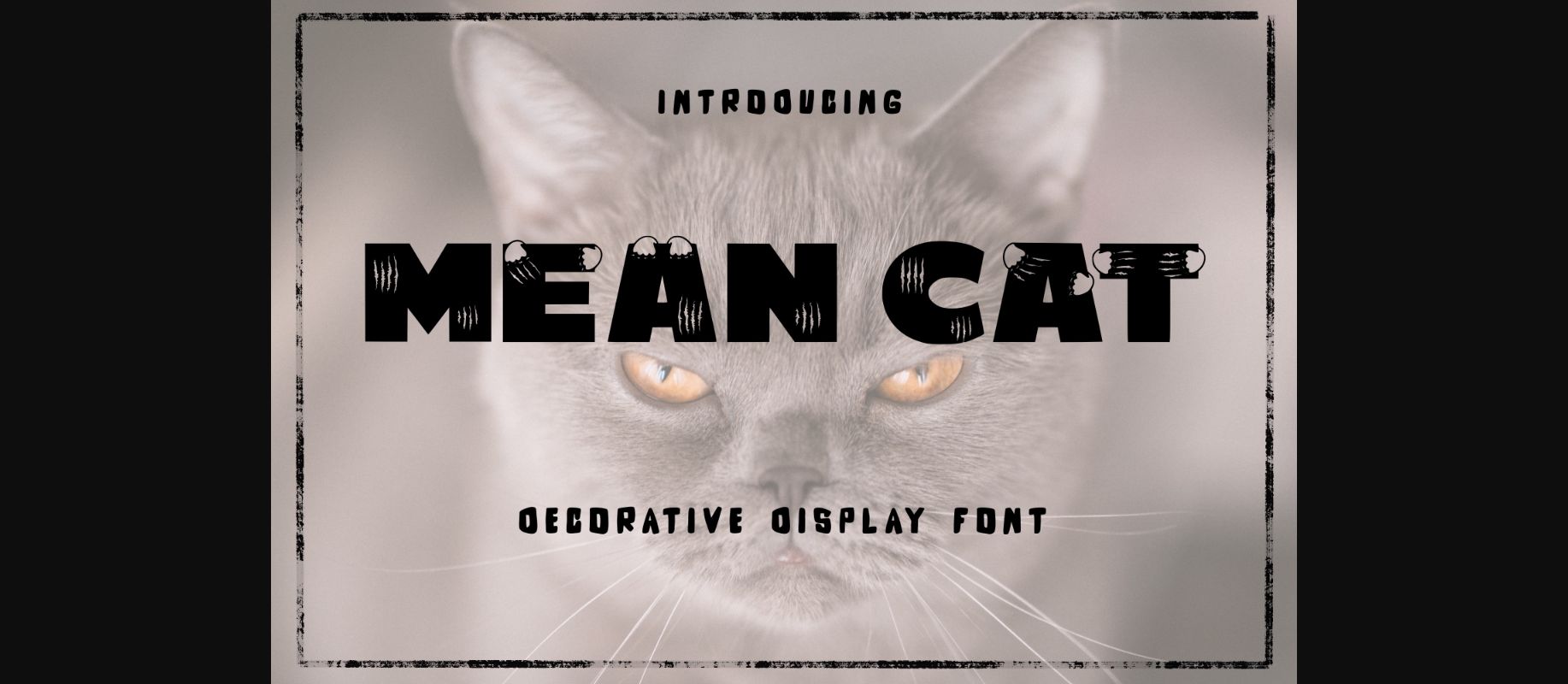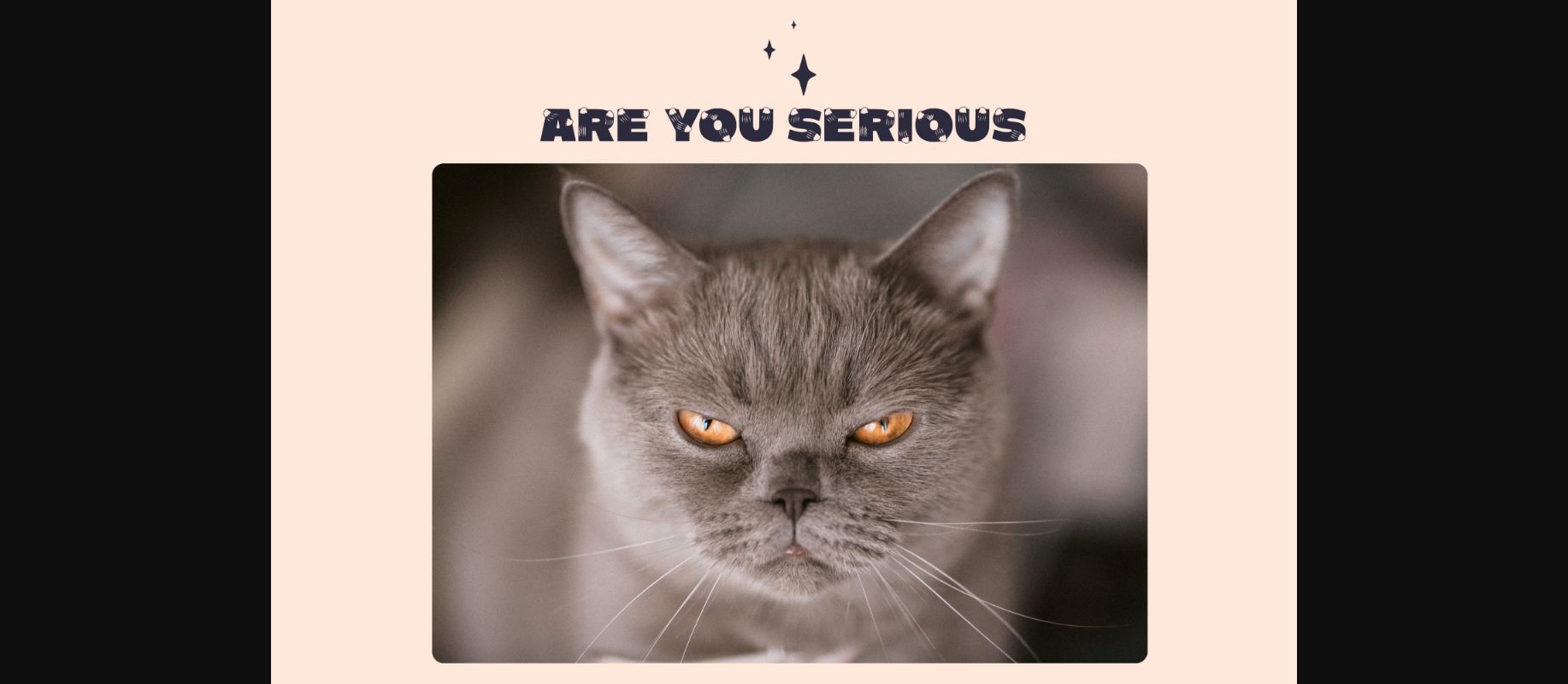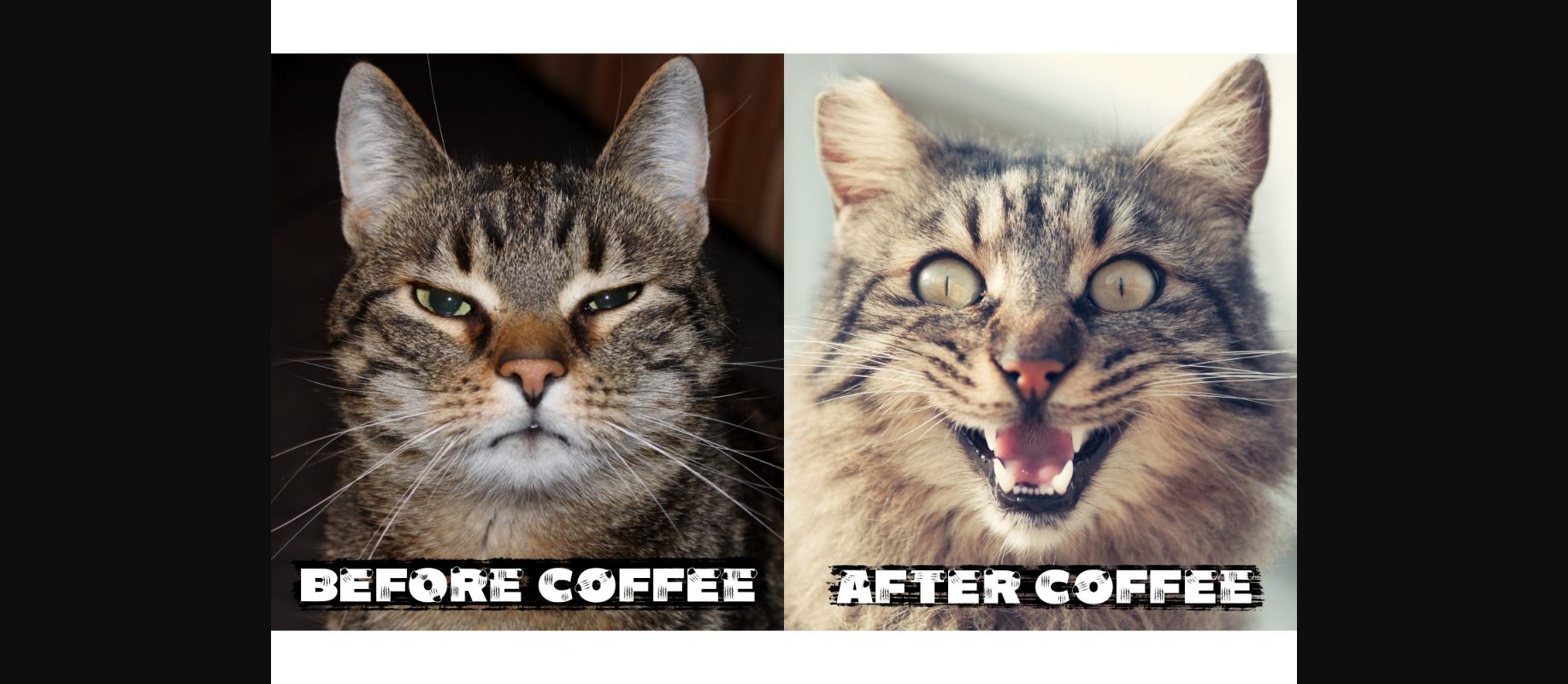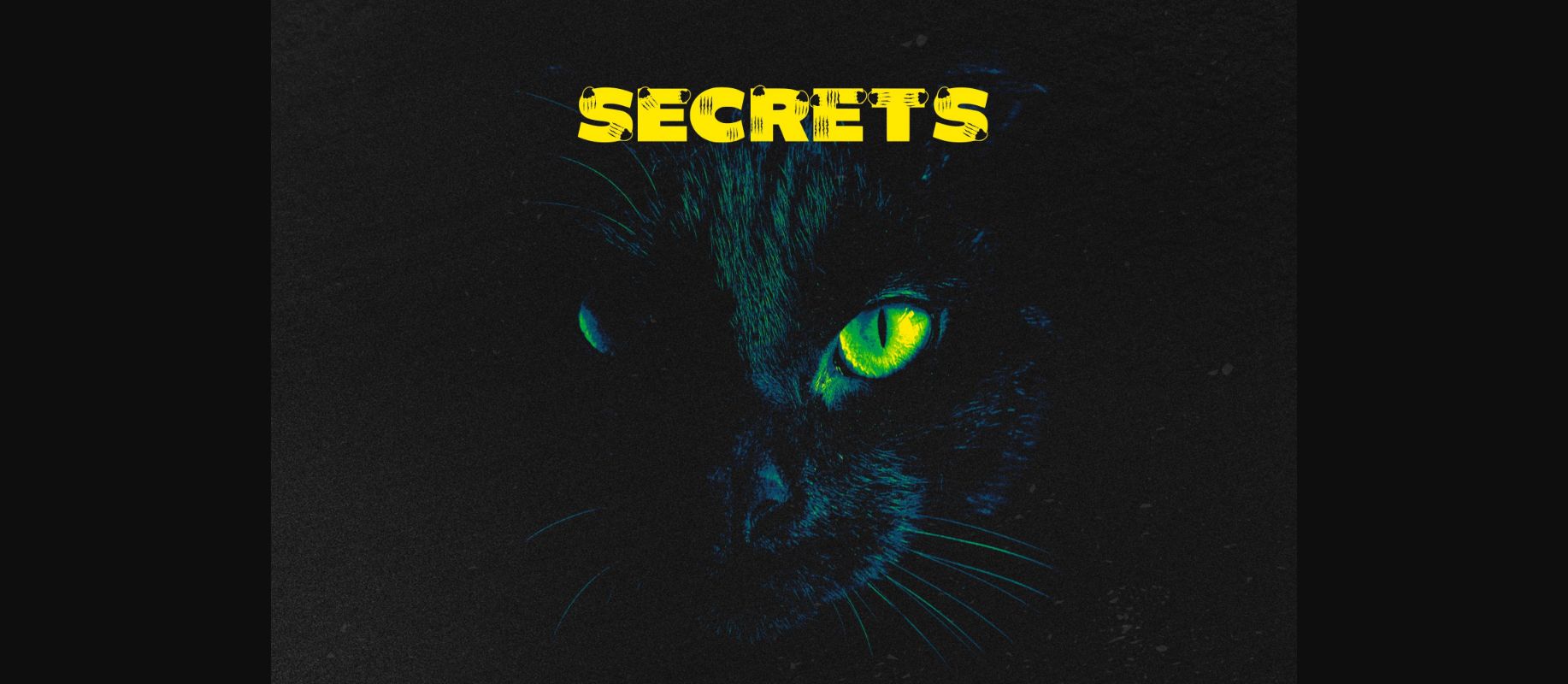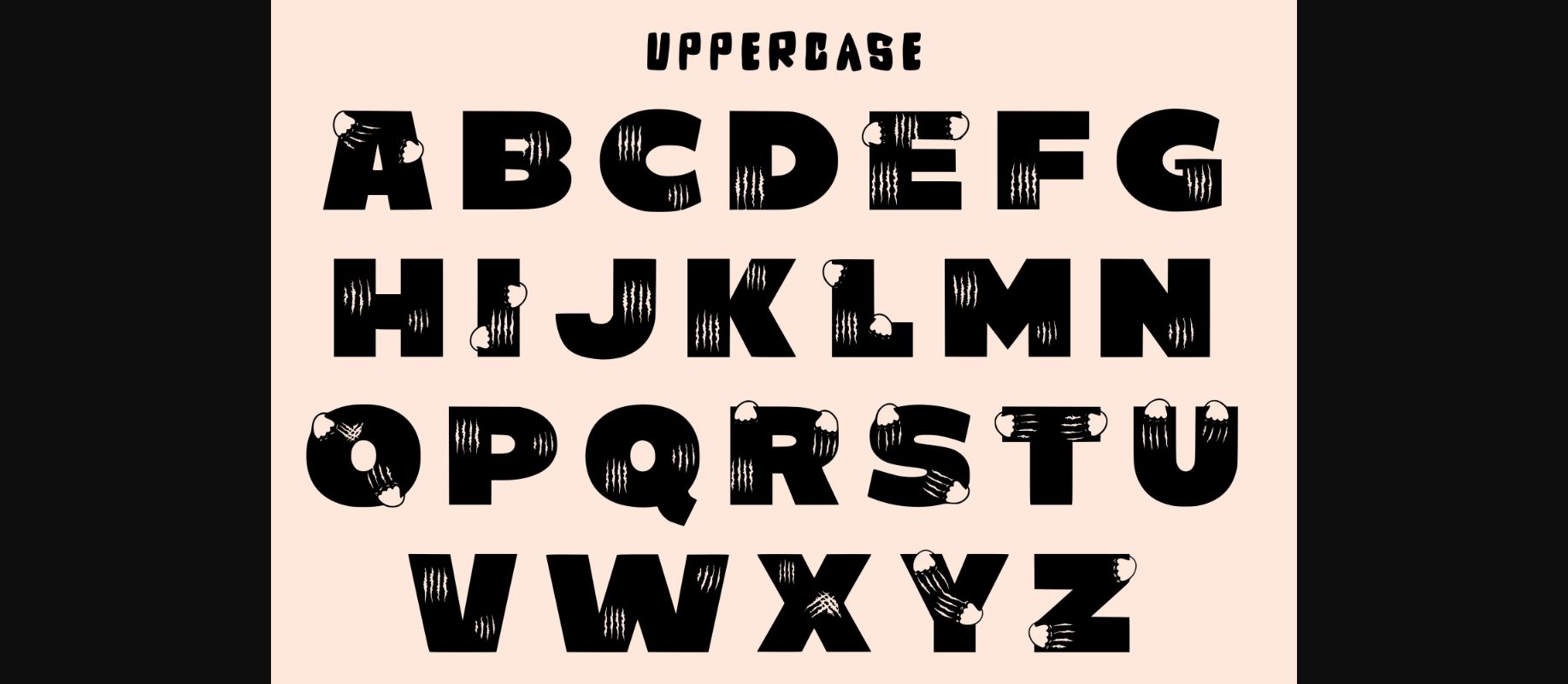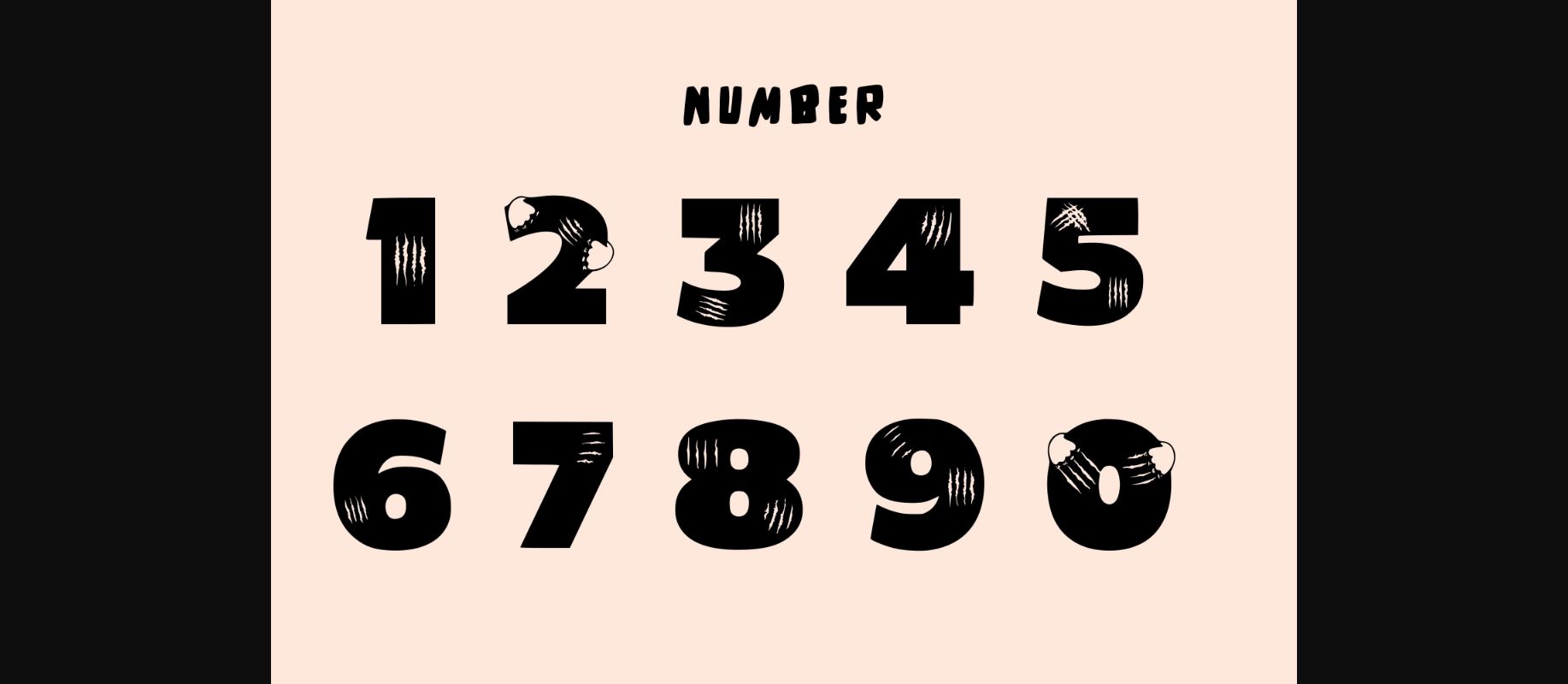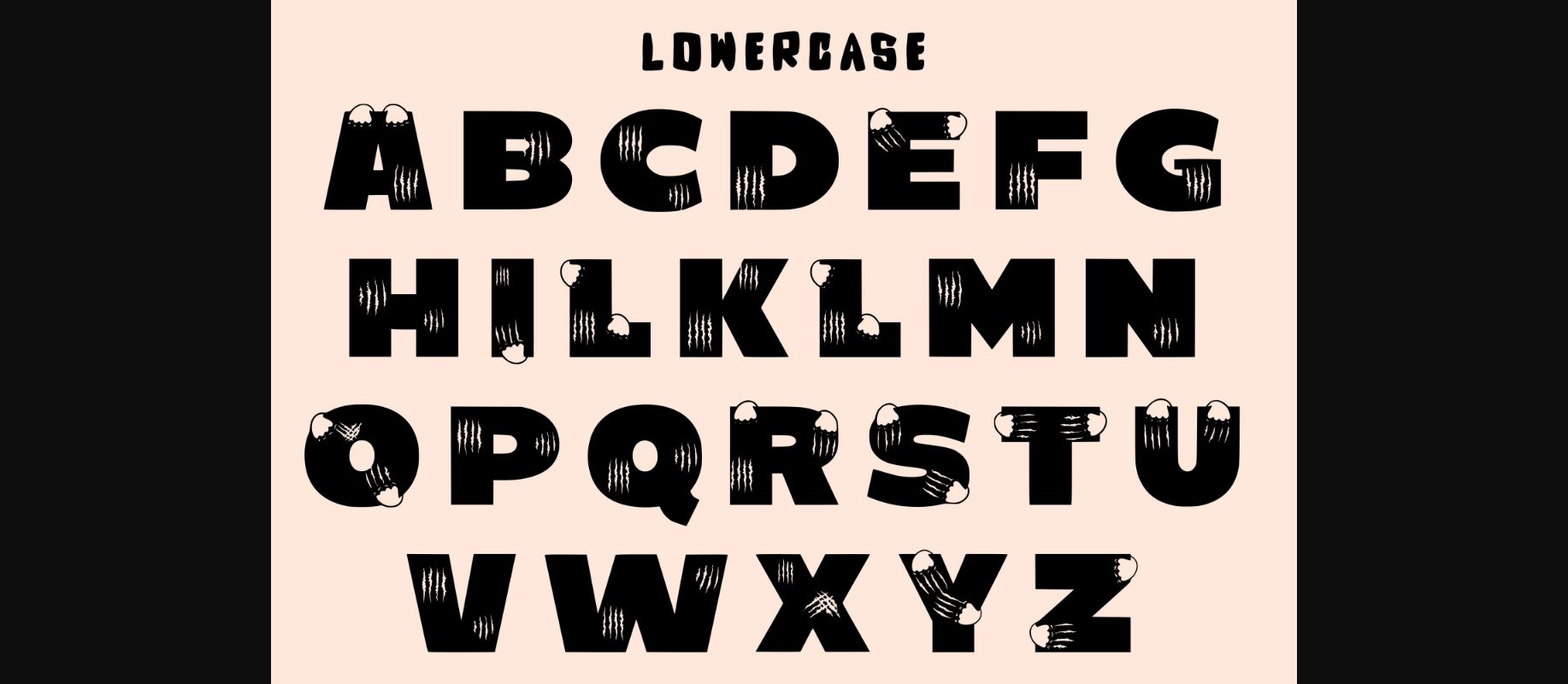
HomeDecorative FontsMean Cat Font Decorative Fonts Mean Cat Font FacebookXPinterestWhatsApp 1 of 9 ... Mean Cat Font Poster 2... Mean Cat Font Poster 3... Mean Cat Font Poster 4... Mean Cat Font Poster 5... Mean Cat Font Poster 6... Mean Cat Font Poster 7... Mean Cat Font Poster 8... Mean Cat Font Poster 9... About Mean Cat Font Mean cat is a cute and scary decorative font. It will work great on artworks related to cats. This font will make the audience stop and look at your creations like never before. DOWNLOAD NOW People also explored Simple Smart Font My Boy Font Vectorina Font Force Of Habit Black Window Font Ellyra Forta Font Handcraft Font Lamish Caritta Font Simple Farmhouse Font 394 0 TagsMean Cat Font Previous articleAlindra Monogram FontNext articleLove Bear Font LEAVE A REPLY Cancel reply Comment: Please enter your comment! Name:* Please enter your name here Email:* You have entered an incorrect email address! Please enter your email address here Website: Save my name, email, and website in this browser for the next time I comment. Personal Use Free Bally Girl Personal Use Free Read more about this font Setta Personal Use Free Read more about this font Beautiful Personal Use Free Read more about this font Lanilla Personal Use Free Read more about this font BLOG Free vs Paid Fonts: Why Investing in Premium Fonts Is Worth It Free vs Paid Fonts: Why Premium Fonts Are Worth It in 2025 The debate of free vs paid fonts continues in the design world. While... Exploring Font Trends Transform Your Website: Elevate Your Typography with 7 Best Web Font Generators To increase your work productivity, choose the most readable fonts.